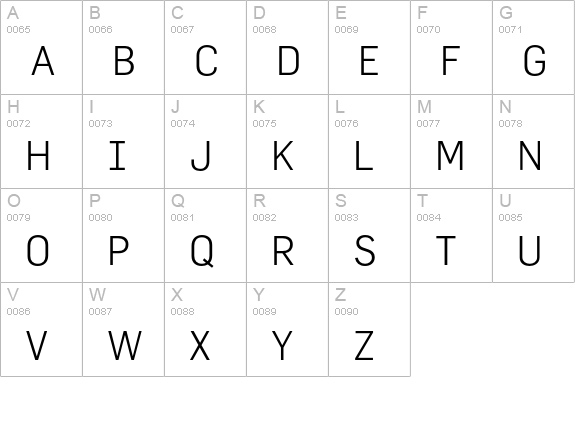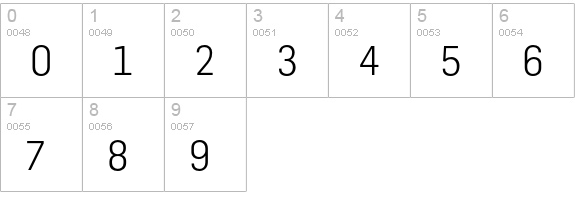
FlamaLight is a modern and elegant font that exudes sophistication and style. With its sleek lines and graceful curves, this typeface is perfect for adding a touch of class to any design project. Whether you're creating a logo, designing a website, or crafting a flyer, FlamaLight is sure to make a lasting impression. The best part? FlamaLight is completely free to download at FontsMarket.com. That's right, you can elevate your designs without breaking the bank. Don't miss out on this opportunity to enhance your work with a high-quality font that won't cost you a dime. Download FlamaLight today and take your creations to the next level!